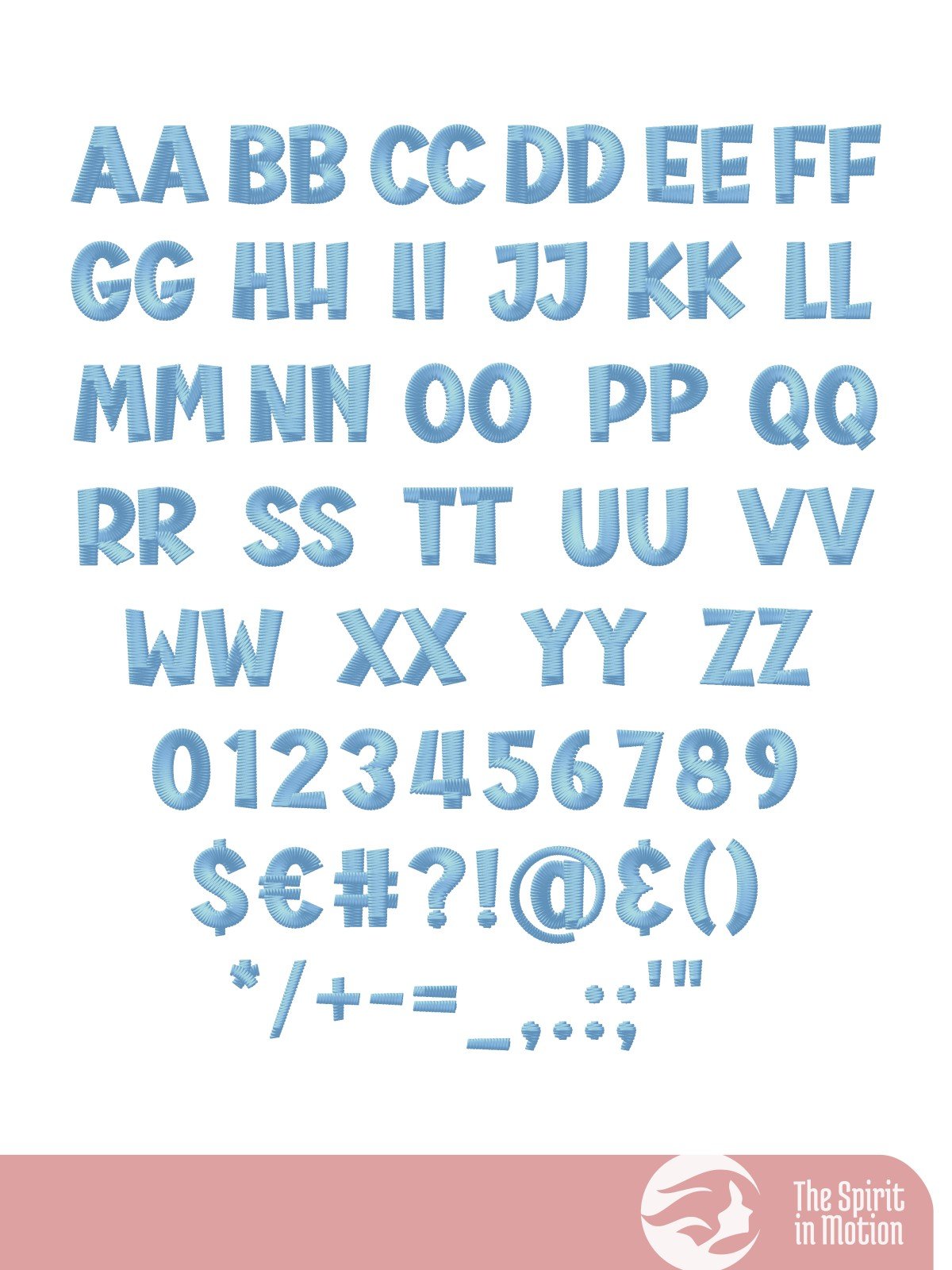
Comica Boom Machine Embroidery Font | PES, BX, DST
Add a stylish and modern flair to your embroidery projects with the Comica Boom font. Perfect for personalizing apparel, clothing, accessories, or home décor, its flowing script design adds elegance and charm to monograms, quotes, and decorative details. The listed sizes refer to the approximate height of uppercase letters, though adjustments may be needed depending on your specific project and machine settings.